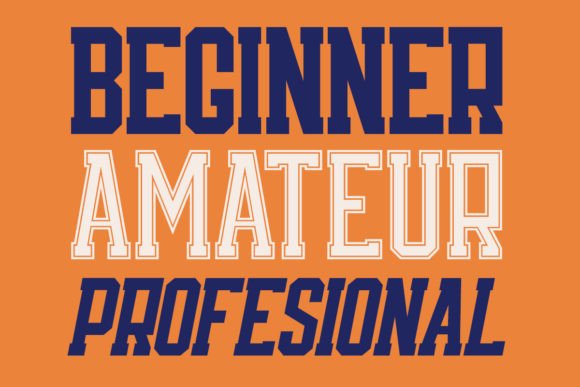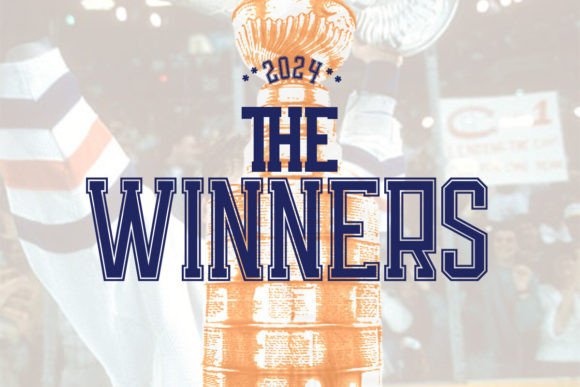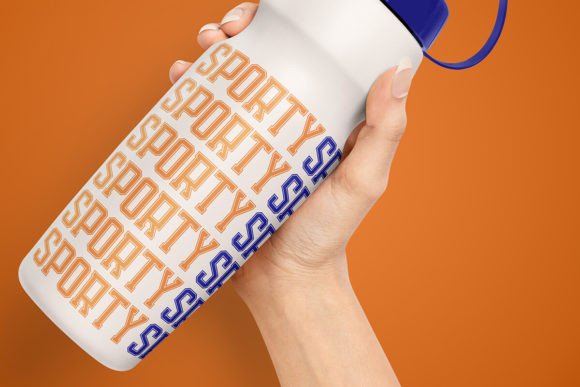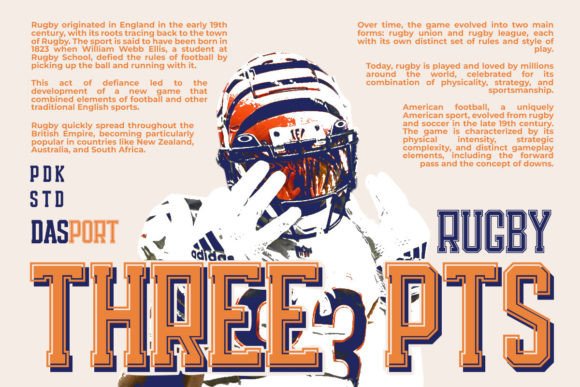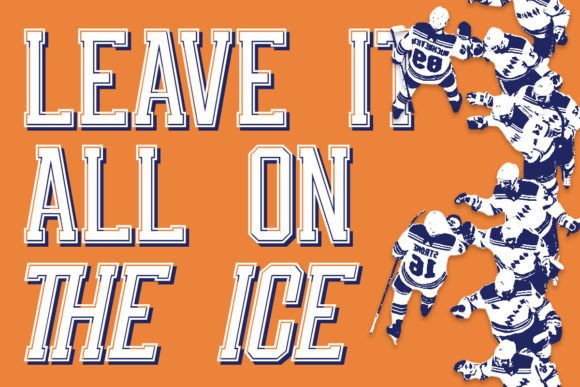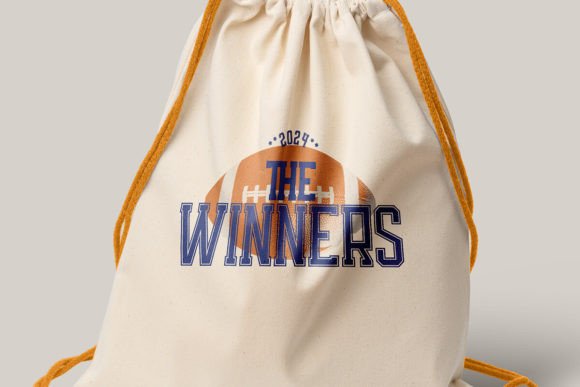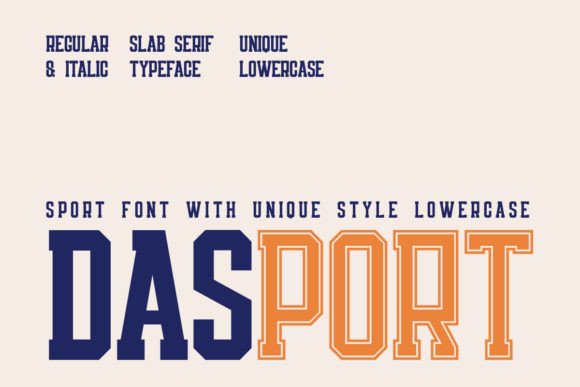
Introducing Dasport Font: The Ultimate Modern Display Font for Creative Projects
In the world of design, a font can make all the difference in creating a lasting impression. That’s why we’re excited to introduce Dasport Font, a modern, bold, and authentic display font that’s perfect for any branding project. With its unique style lowercase characters, Dasport is set to revolutionize the way you approach font selection for your creative endeavors.
What Makes Dasport Font Stand Out?
Dasport Font is not just another font; it’s a game-changer. Its modern and bold design ensures that your branding stands out in a crowded market. The unique style lowercase characters add a touch of authenticity, making it perfect for designers and crafters looking for a font that can help their projects shine.
Whether you’re working on a logo, template design, product packaging, or any other creative project, Dasport Font is the perfect choice. Its versatility knows no bounds, and it can be used in a wide range of contexts, from esports to fashion and beyond.
As a designer or crafter, you know how important it is to have a font that can keep up with your creative vision. Dasport Font is designed with you in mind. Its dynamic and eye-catching style is sure to capture the attention of your audience and leave a lasting impression.
With Dasport Font, you can:
• Create stunning logos that represent your brand’s personality
• Design eye-catching templates for social media, websites, and more
• Develop product packaging that stands out on store shelves
• Add a touch of modernity to your fashion designs
Why Choose Dasport Font?
There are many fonts available in the market, but Dasport Font offers a unique combination of style, versatility, and authenticity. Here are some reasons why you should choose Dasport Font for your next project:
• Modern and Bold Design: Dasport Font has a modern and bold design that’s perfect for creating a lasting impression.
• Unique Style Lowercase Characters: The unique style lowercase characters add a touch of authenticity to your designs.
• Versatility: Dasport Font can be used in a wide range of contexts, from esports to fashion and beyond.
• Easy to Read: Despite its bold design, Dasport Font is easy to read, making it perfect for body text and headings.
• Pair it with Other Fonts: Dasport Font can be paired with other fonts to create a unique and visually appealing design.
• Experiment with Different Sizes: Dasport Font looks great in large and small sizes, so don’t be afraid to experiment.
• Use it for Headings and Titles: Dasport Font is perfect for headings and titles, but it can also be used for body text.
In conclusion, Dasport Font is a modern, bold, and authentic display font that’s perfect for any branding project. With its unique style lowercase characters and versatility, it’s set to revolutionize the way you approach font selection. Whether you’re a designer or crafter, Dasport Font is the perfect choice for adding a dynamic and eye-catching touch to your creative endeavors.